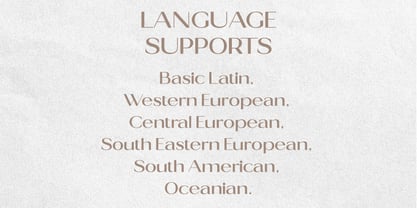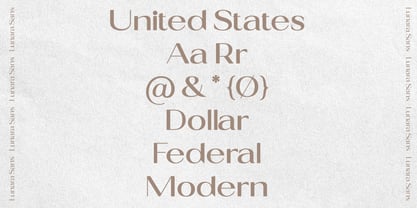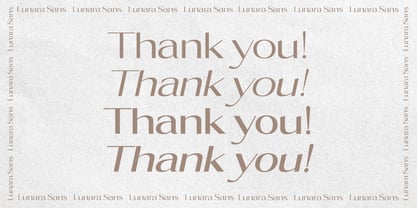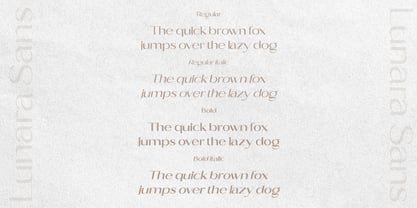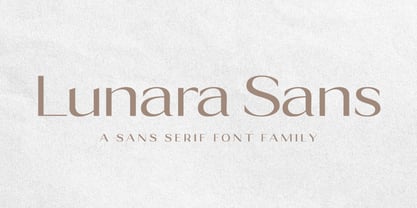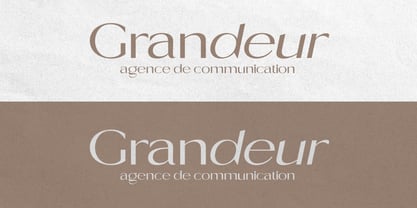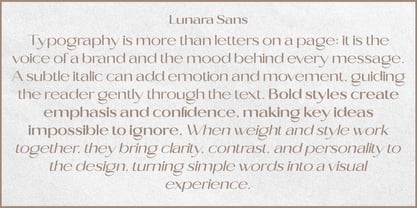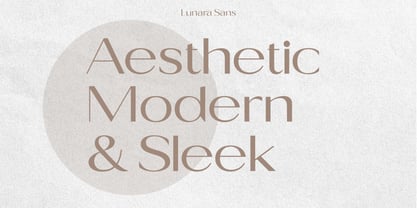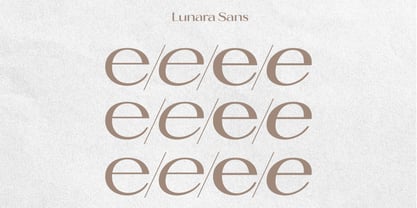
Lunara Sans
by Prestige Artsy Studio
The Lunara Sans Font Family was designed by Zak M and published by Prestige Artsy Studio. Lunara Sans contains 4 styles and family package options. More about this family
Lunara Sans is a sleek, elegant, and modern sans serif font family that embodies clean aesthetics and professional impact. Featuring refined geometry and balanced letterforms, Lunara Sans ensures clarity, sophistication, and versatility for both digital and print projects. This contemporary font family includes Regular, Italic, Bold, and Bold Italic styles, providing full flexibility for branding systems, editorial layouts, websites, logos, and user interfaces. Whether designing for a luxury brand, a modern startup, or a minimal editorial piece, Lunara Sans adapts effortlessly while maintaining a polished, high-end feel, making it an ideal choice for various applications.
Designers: Zak M
Foundry: Prestige Artsy Studio